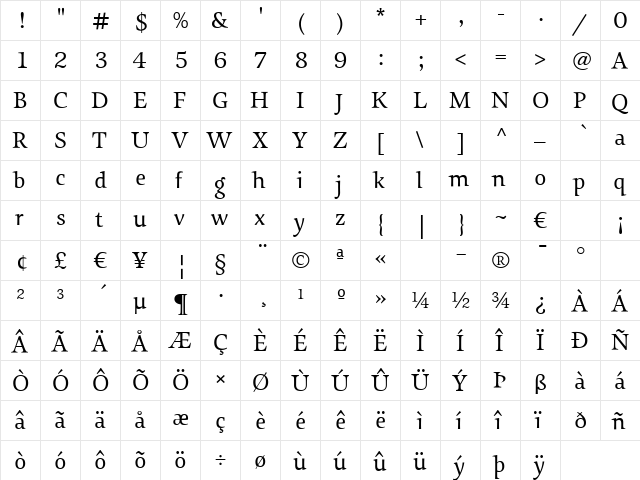
Sovereign-Regular Regular
Sovereign-Regular takes a measured approach to typography — its balanced proportions and neutral character make it a reliable workhorse for both digital and print work.